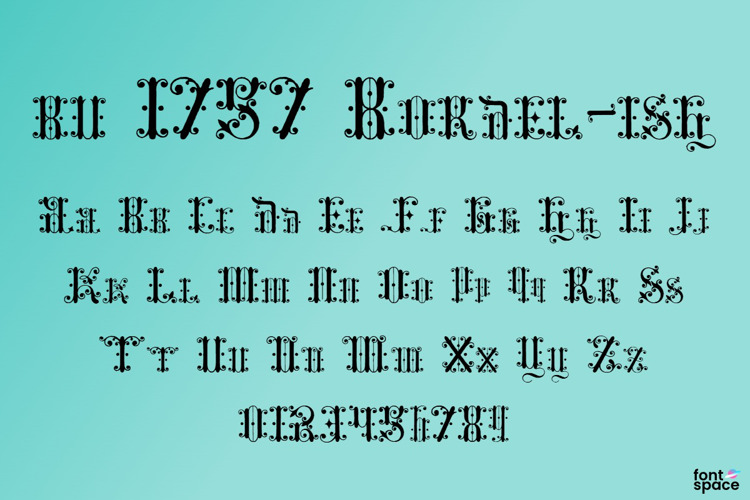
bu 1757 Bordel-ish Font
Cured Regular Style
bu 1757 Bordel-ish
This is very loosely based on a French font found in a really old book of typography. The book claims it to be 17th century, but I feel it is a bit more recent. More in the mid 1700's range I would think.
bu 1757 Bordel-ish Cured
I did some modifications on the font by taking out the dots on either side of some of the characters, making it a little bit easier to read.